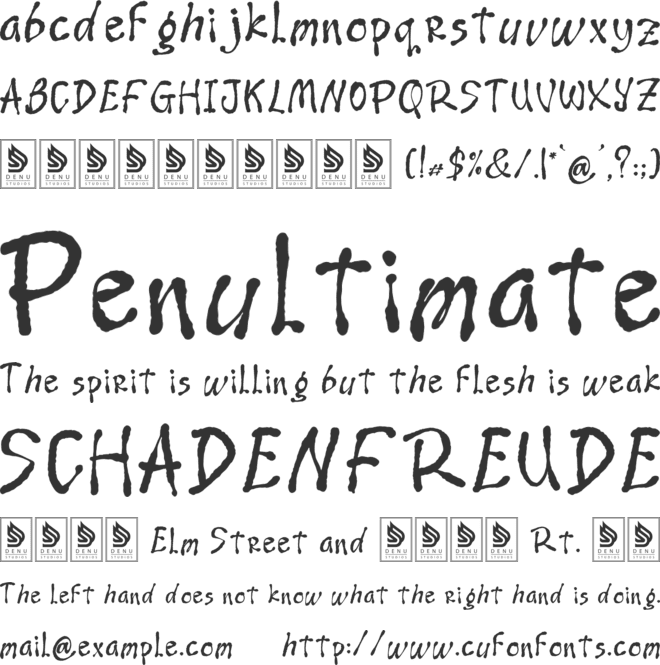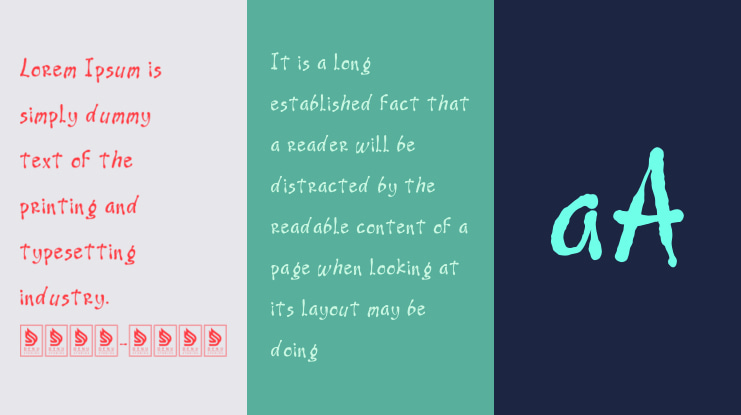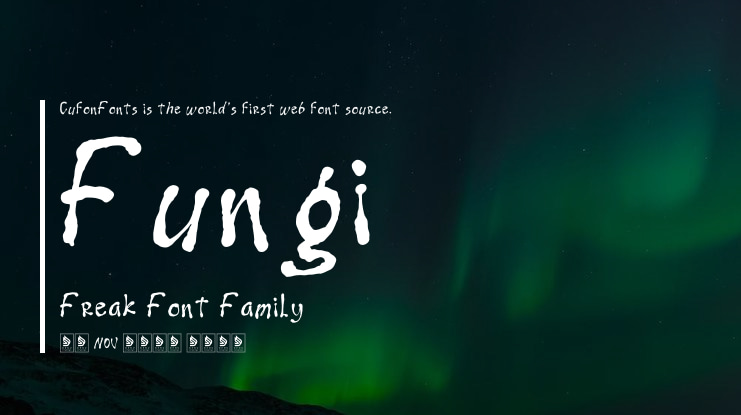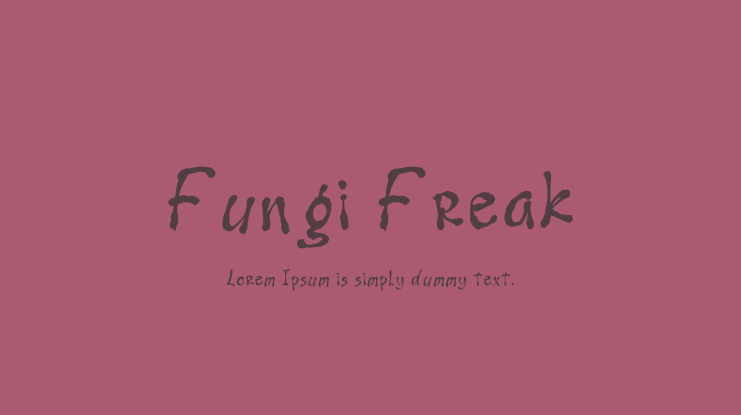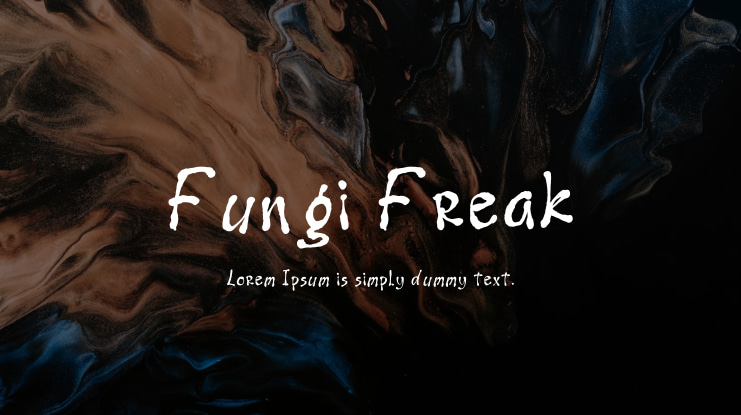
Fungi Freak Font
Fungi Freak - Messy Handwriting Font
The Fungi Freak font is perfect for enhancing a variety of projects including logos, branding projects, homeware designs, product packaging, mugs, quotes, posters, shopping bags, T-shirts, book covers, name cards, invitation cards, greeting cards, labels, photography, watermarks, special events, and any other projects that benefit from a touch of a messy handwriting font.